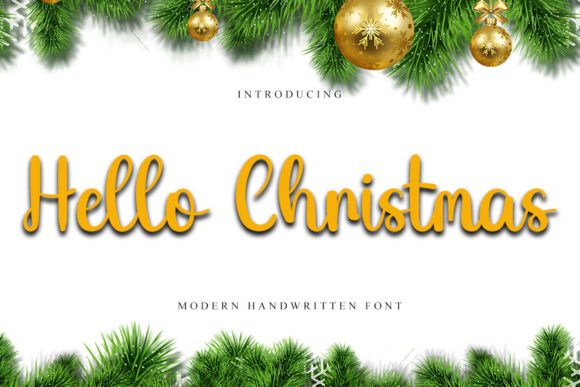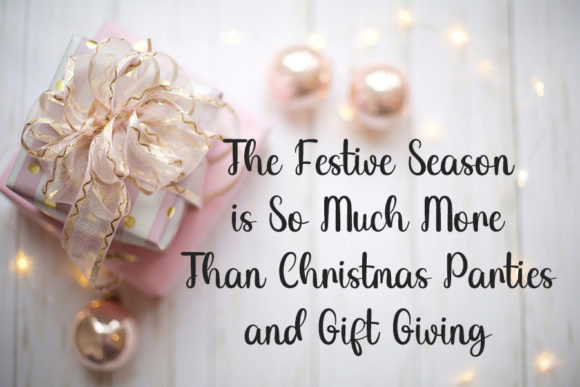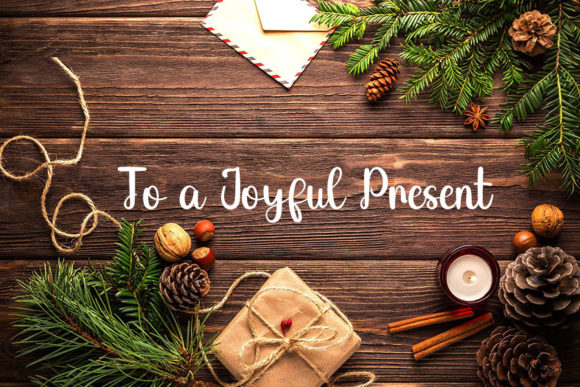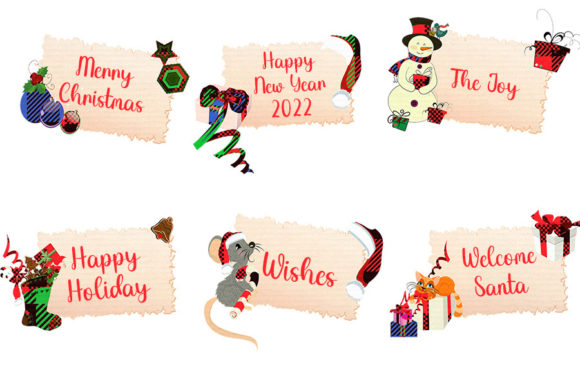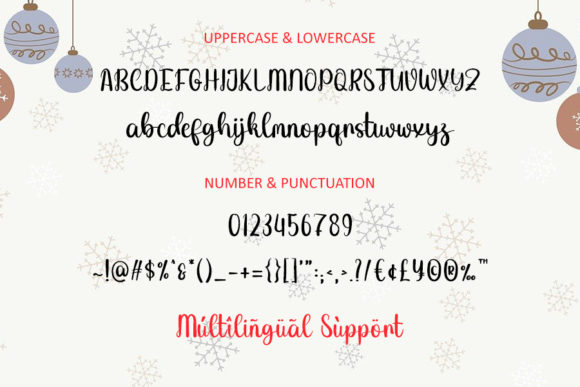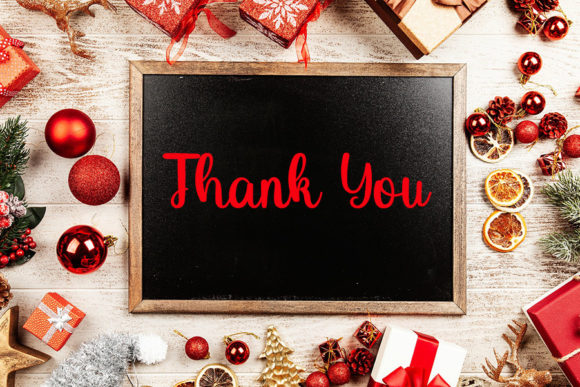
Hello Christmas Font
About Hello Christmas Font
Hello Christmas is a stylish handwritten font with a contemporary atmosphere and impeccable form, inspired by a timeless classic calligraphy. Not too thin and not too thick, balanced and varied, this font was designed to enhance the beauty of your projects.